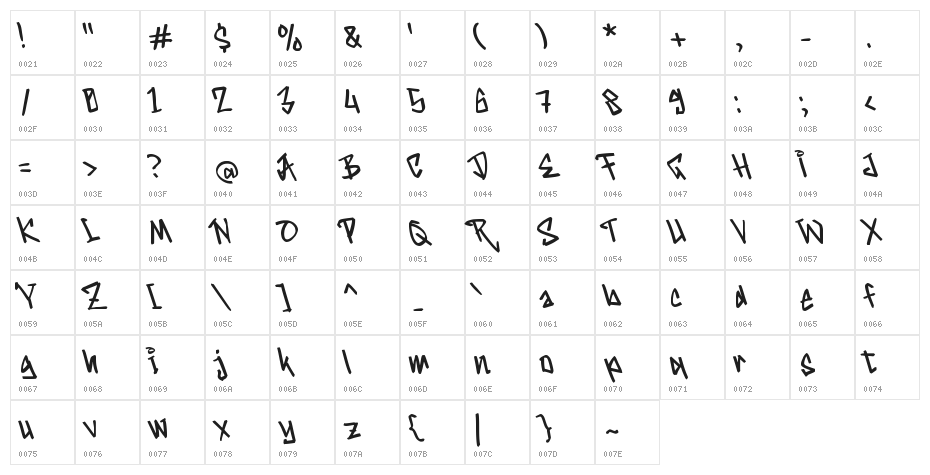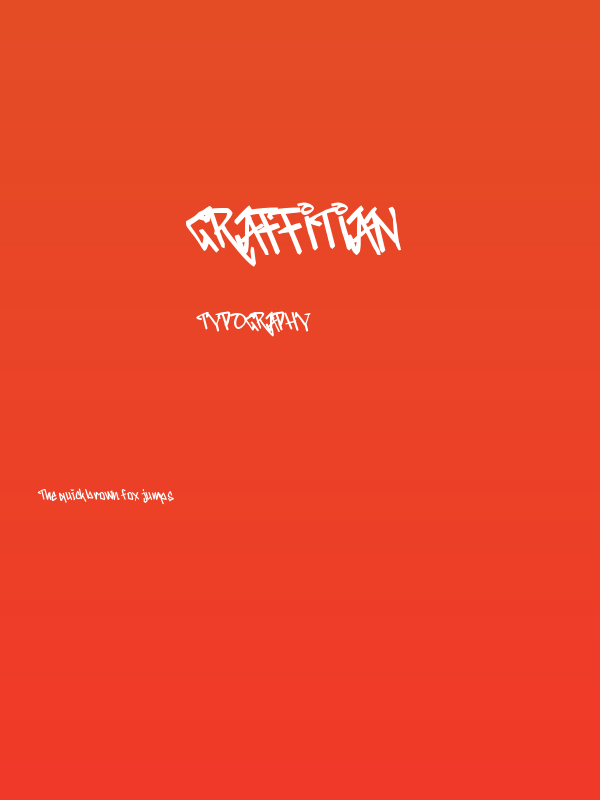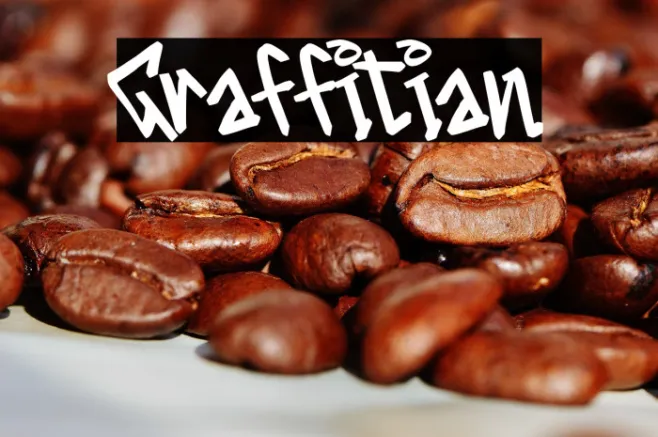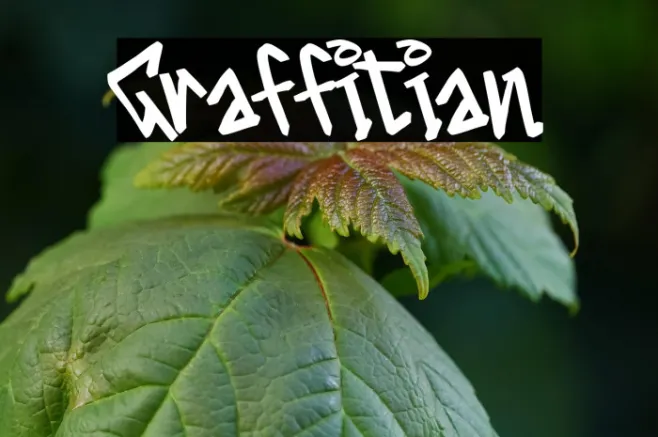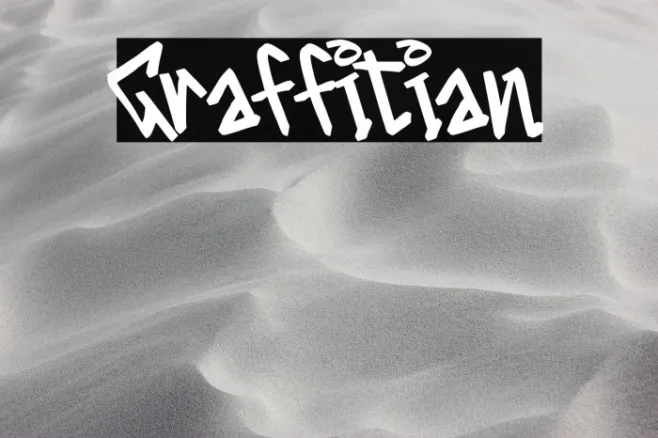
Graffitian Font
Graffitian Description
This font exhibits a bold, expressive style reminiscent of urban graffiti art. The characters are dynamic and energetic, with sharp angles and a sense of movement that captures the rebellious spirit of street culture. The uppercase letters are particularly striking, with exaggerated forms and unique flourishes that add to the overall impact. The lowercase letters maintain the same edgy aesthetic, providing a cohesive look across the alphabet. Numbers and special characters are equally bold, ensuring consistency throughout. This font is perfect for projects that require a strong, unconventional visual statement.
| Overall Style | Urban, Rebellious, Energetic |
| Proposed Projects | Ideal for street art designs, urban-themed posters, music album covers, and edgy branding projects. |